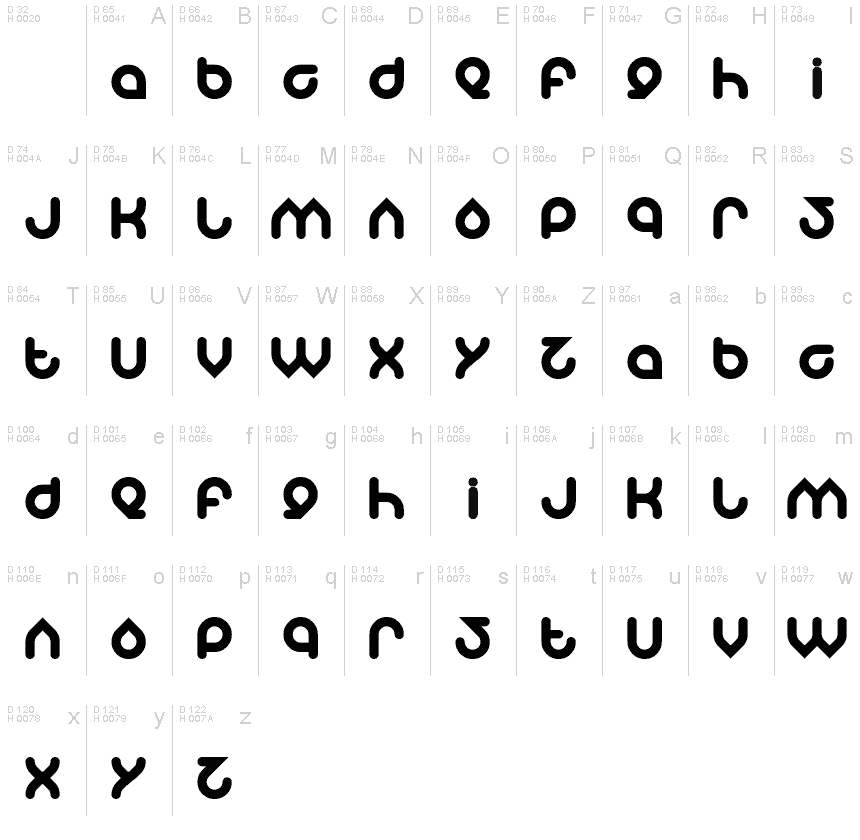
znowwhite
and i would like to dedicated this font for annete or :iconznow-white: she is from Stockholm ,Sweden, and one of the Best GM, from DA
why i create this font for her? well
i dont know why..., may be its because, a letter z that should written S in her nick name znow-white is very interesting me
and i think its cool, and thats why my s and z letter on znowwhite font is looks strange too haha.
well annette i hope you like this font too
well on text art znow white up there, i make a symbol of something, i hope you can see it and write in the comment below
what do you think it is